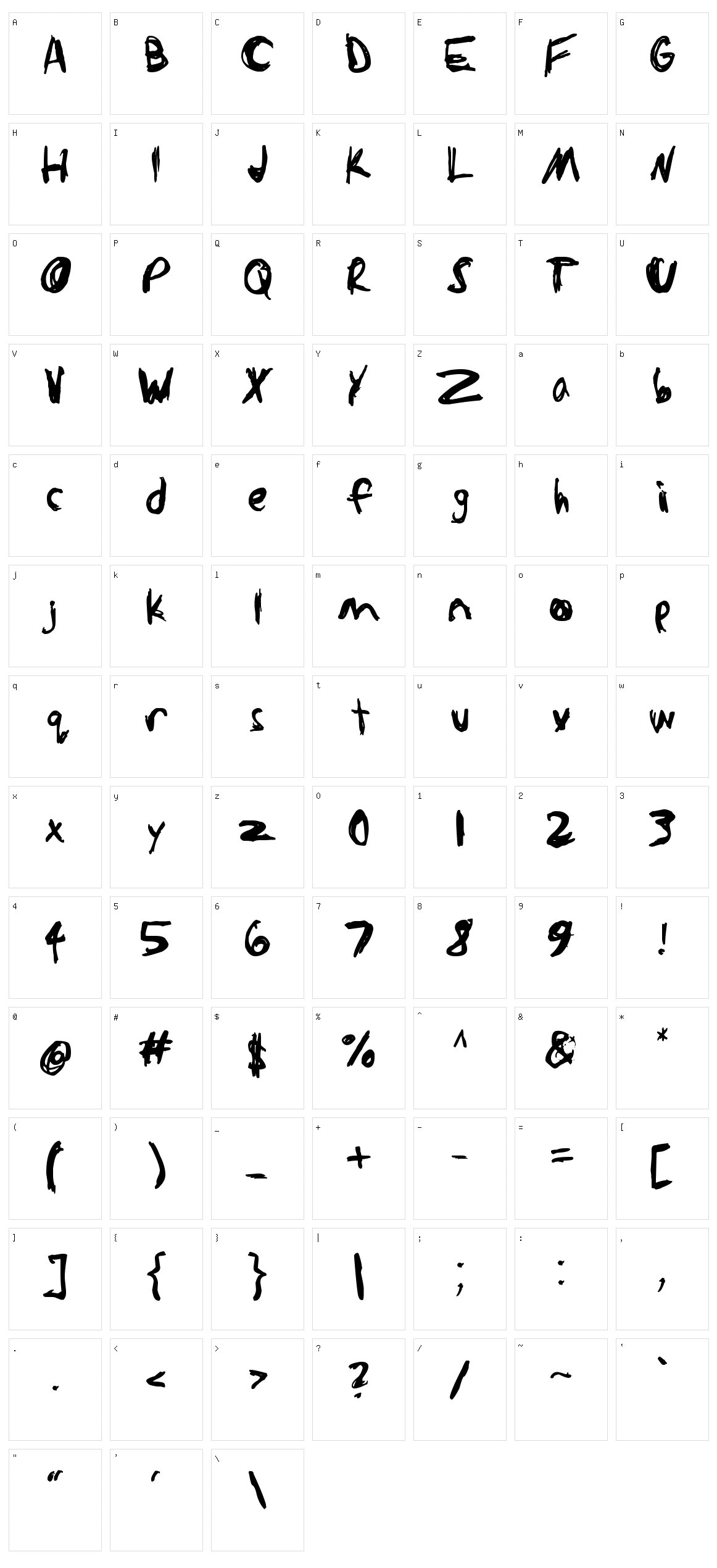
The free font Sketchathon is carefully designed by Corey Worrell, showcasing a thoughtful balance of creativity and usability and falls under the Trash font style. When you download the ZIP file, it contains only 99.68 KB of font files, making it lightweight and quick to download. Please review the license details below to understand permitted usage and distribution rights. If license information is not available, we recommend using this font for personal projects only or contacting the author directly for commercial usage permissions.